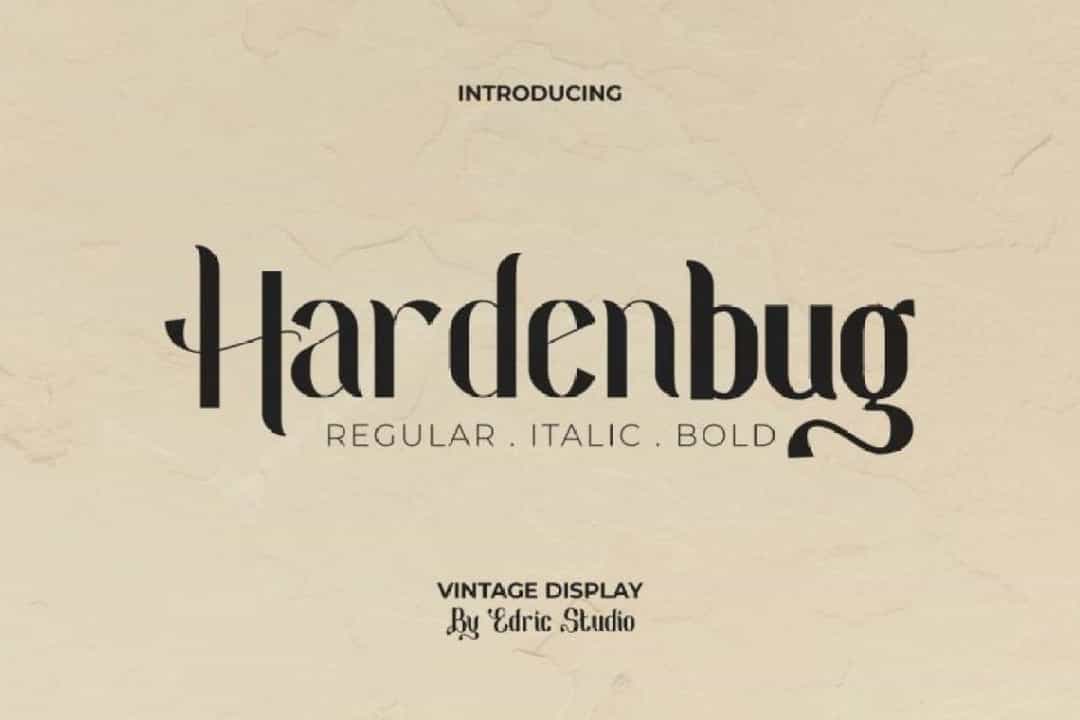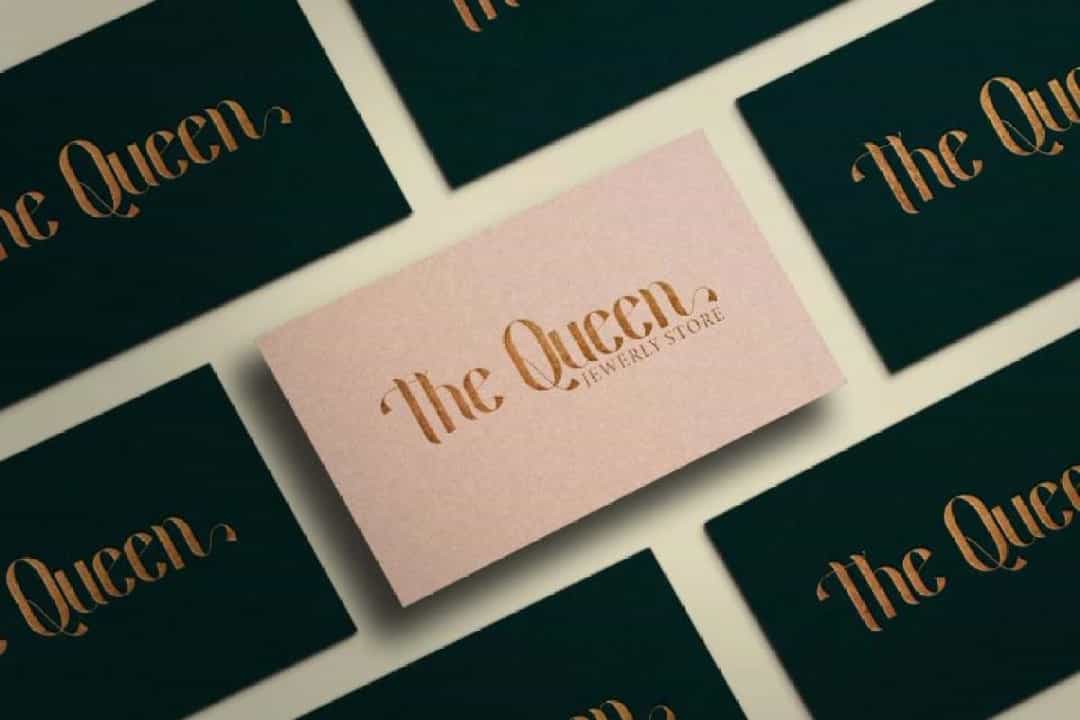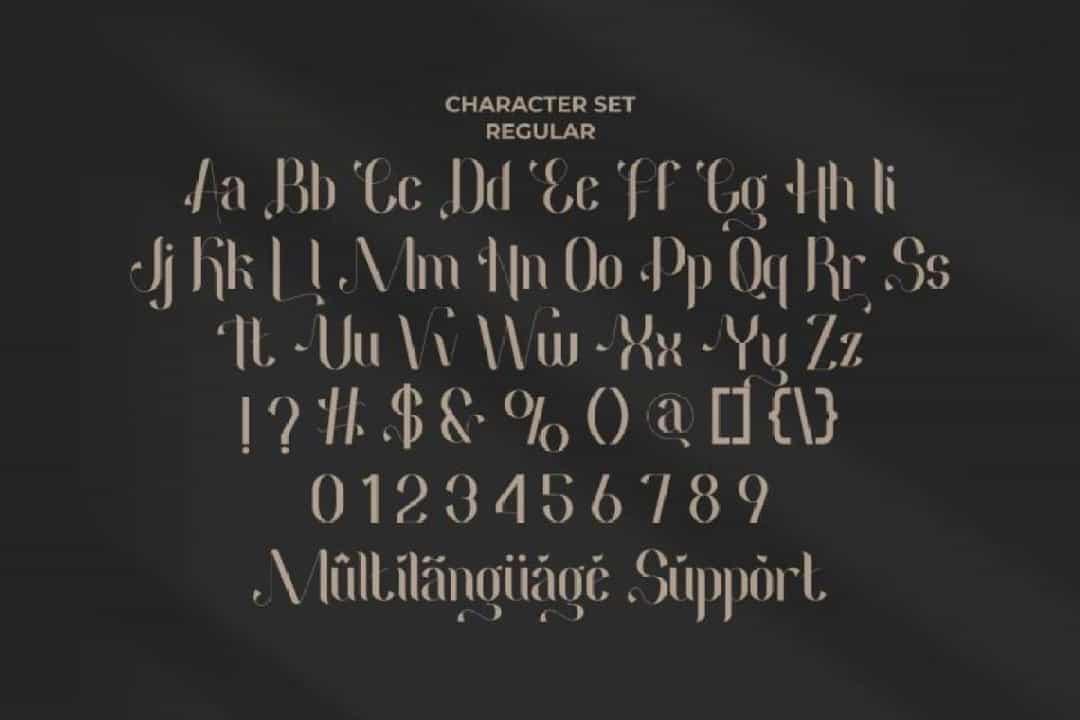
Hardenburg Font is an uni-serif display font created to pay tribute to Gothic and Medieval styles, offering three variations: Regular, Italic and Bold. It boasts amazing mystery with classical elegance. Perfect for branding purposes as well as advertisements, headlines promotions headlines. Elegant classy distinctive.